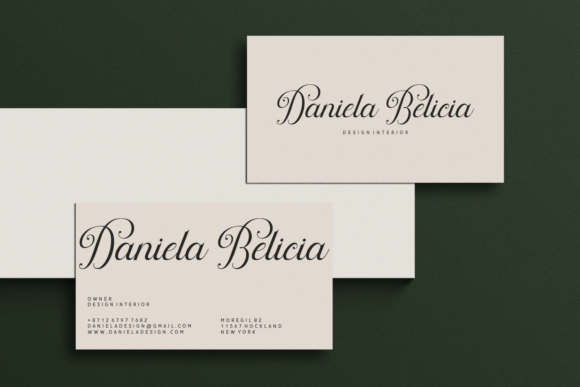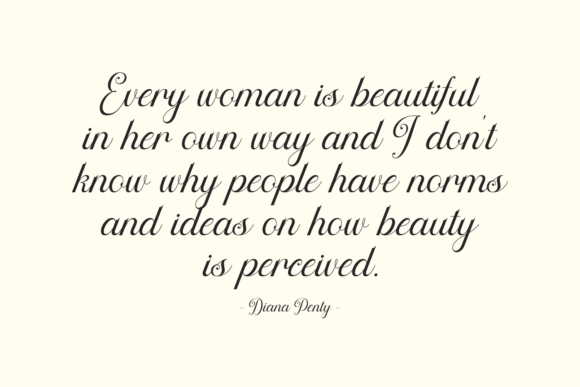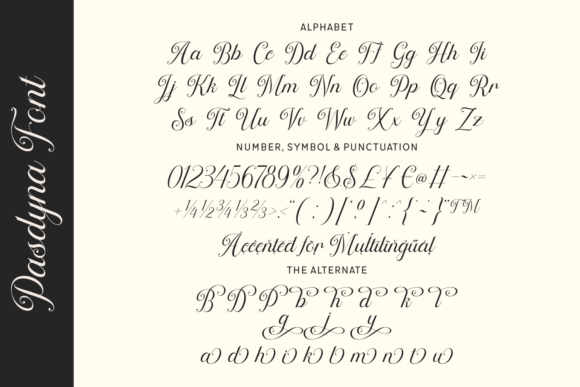
Introduction to Pasdyna Font Font
Fonts play a crucial role in design, and the Pasdyna Font font is a typeface that brings both character and versatility to any project. Whether you’re working on a branding project, a website, or a print design, the Pasdyna Font font offers a unique style that can elevate your work.
Pasdyna is a classic script font.
The sophisticated design of Pasdyna is perfect for special occasions such as weddings, anniversaries, or other celebratory events, adding a touch of elegance to the details .
Key Features of Pasdyna Font Font
Why Choose Pasdyna Font Font?
The Pasdyna Font font is more than just a typeface – it’s a design tool that helps you communicate your message with style and clarity. Its unique character set and versatile design make it suitable for a wide range of applications, from elegant invitations to bold headlines.
With its carefully crafted letterforms and balanced proportions, the Pasdyna Font font ensures readability and visual appeal across all mediums.
What makes Pasdyna Font font special?
The Pasdyna Font font stands out with its unique design, exceptional readability, and versatility across various design applications.